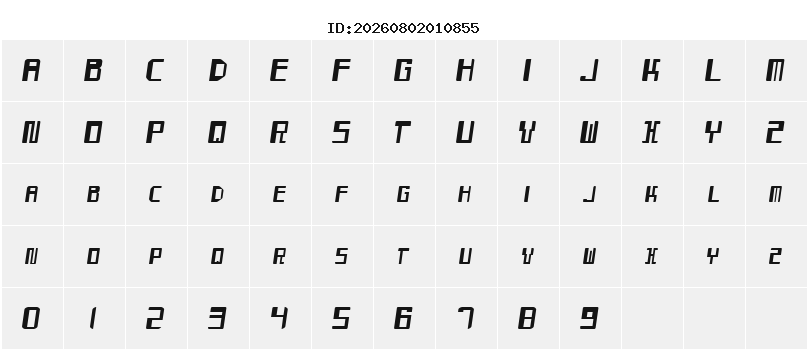
• Font Name: Mayday
• Font Style: Oblique
• Full Font Name: Mayday Oblique
About Mayday.ttf
Mayday.ttf is a modern, elegant sans-serif font designed for ultimate readability and visual harmony. Perfect for branding, headlines, web design, and print materials.